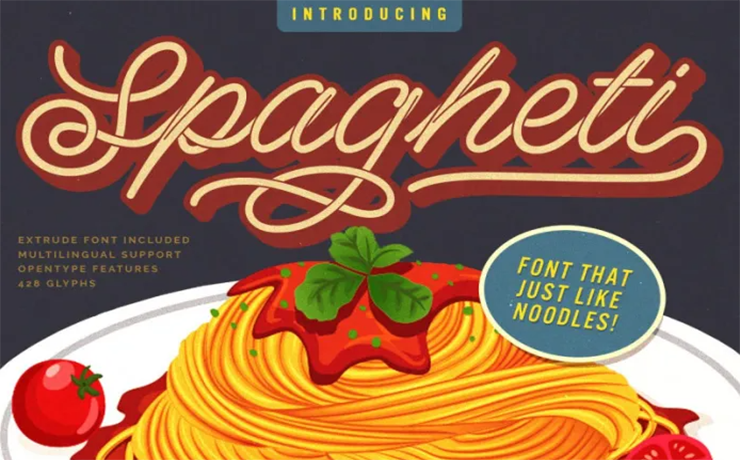
Spagheti Script Font is a monoline typeface, filled with aesthetics in every curve and line. Clean calligraphy in its best traditions with excellent swashes, complementing your composition.
Indonesia Based Type Designer Hendra Pratama is known as the primary designer of this typeface.
Beautiful curves, stencils, or cut-off shapes will not only make your typography look like noodles made in fluffy letters, but will also make your type of design look like this custom hand.
These upper and lower cases look swirly because the designer uses excessive curves. Therefore, it deeply maintains the natural flow and cools this remarkable font.
Because of these connected letters, it maintains a natural flow to the depths. Therefore, you can definitely get a better and unique design with its help.
You can use this monoline typeface for social media posts, advertisements, logos & branding, invitation, special event cards, product designs, product packaging, game graphics, printing on cards, special quotes, watermark images, and so on.
This amazing font family comes in unique styles that possess Open Type features. And if you combine regular fonts with extruded fonts, you can create 3D extruded text effects so easily!